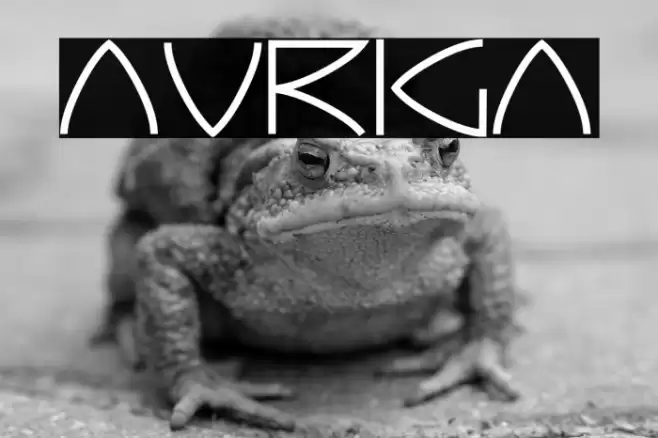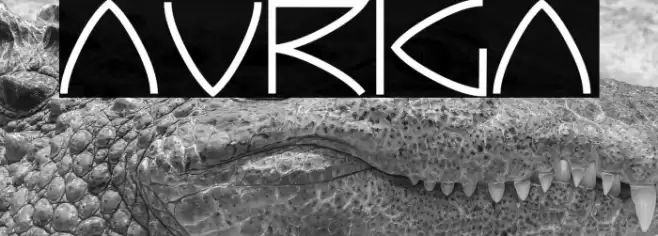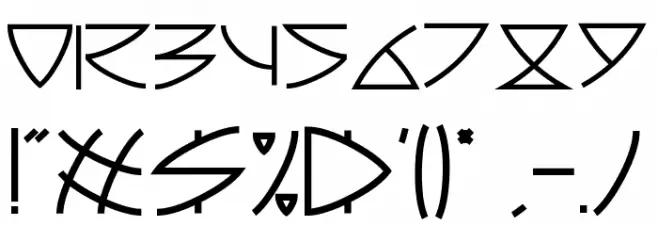
Auriga Font
Auriga Description
This font features a futuristic and geometric design, characterized by sharp angles and a distinct, angular style. The characters are crafted with a unique blend of straight lines and curves, creating a dynamic and edgy appearance. The uppercase and lowercase letters maintain a consistent style, with a focus on symmetry and balance. Numbers and special characters are designed to complement the overall aesthetic, ensuring a cohesive look across all elements. The font's modern and innovative design makes it suitable for projects that require a bold and distinctive visual impact.
A futuristic, geometric font with sharp angles and a dynamic style from Regular fonts.
- Proposed Projects: Ideal for sci-fi themed projects, technology branding, video game titles, and modern art designs.